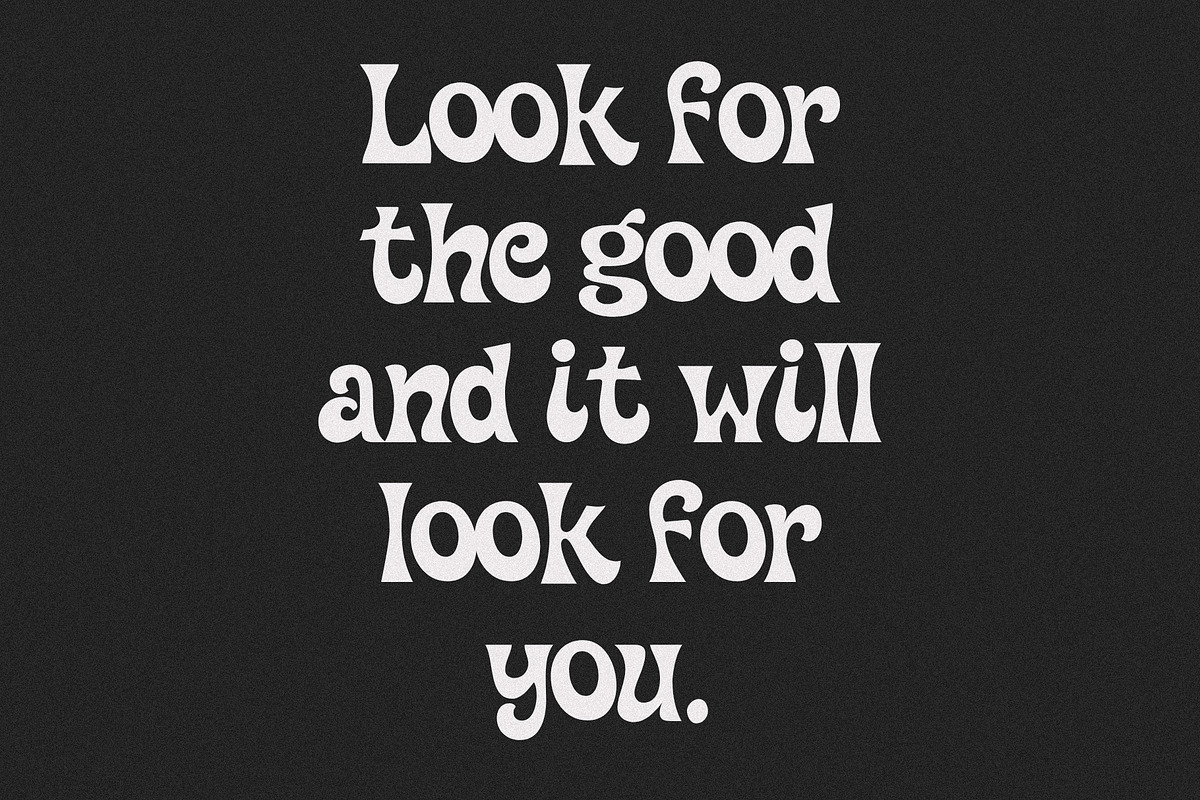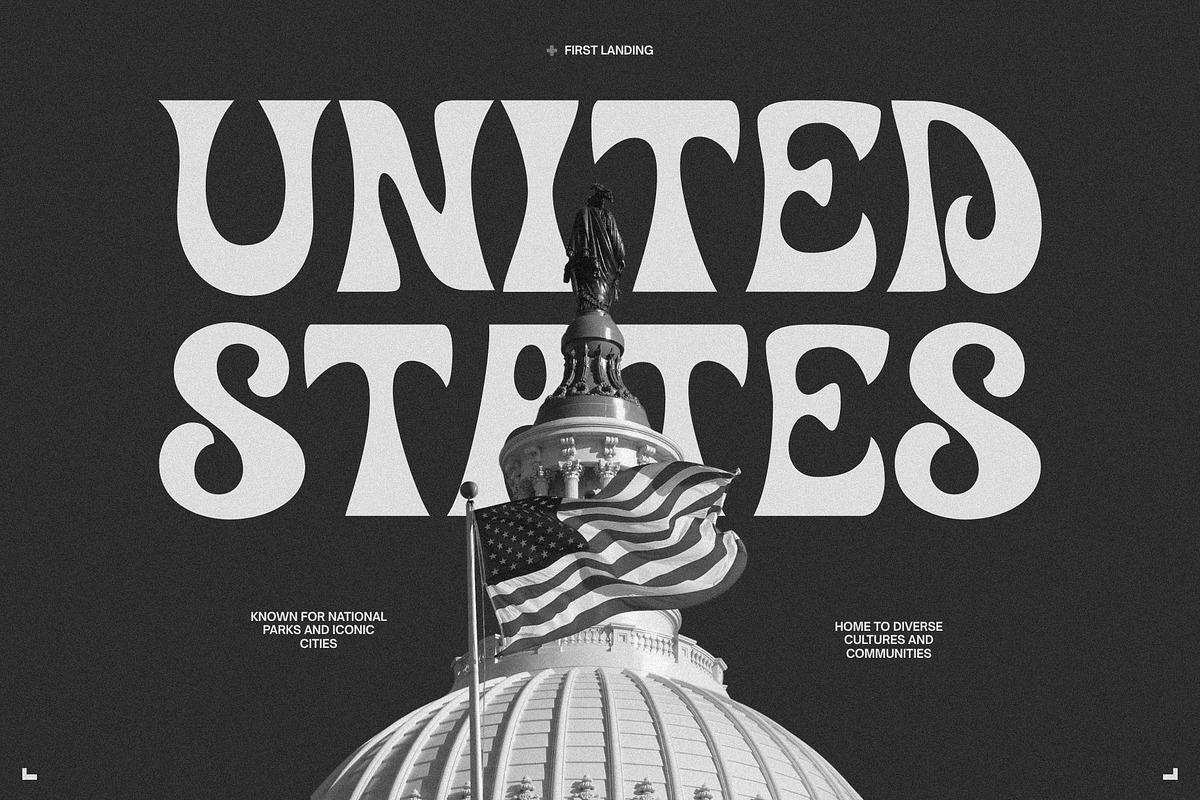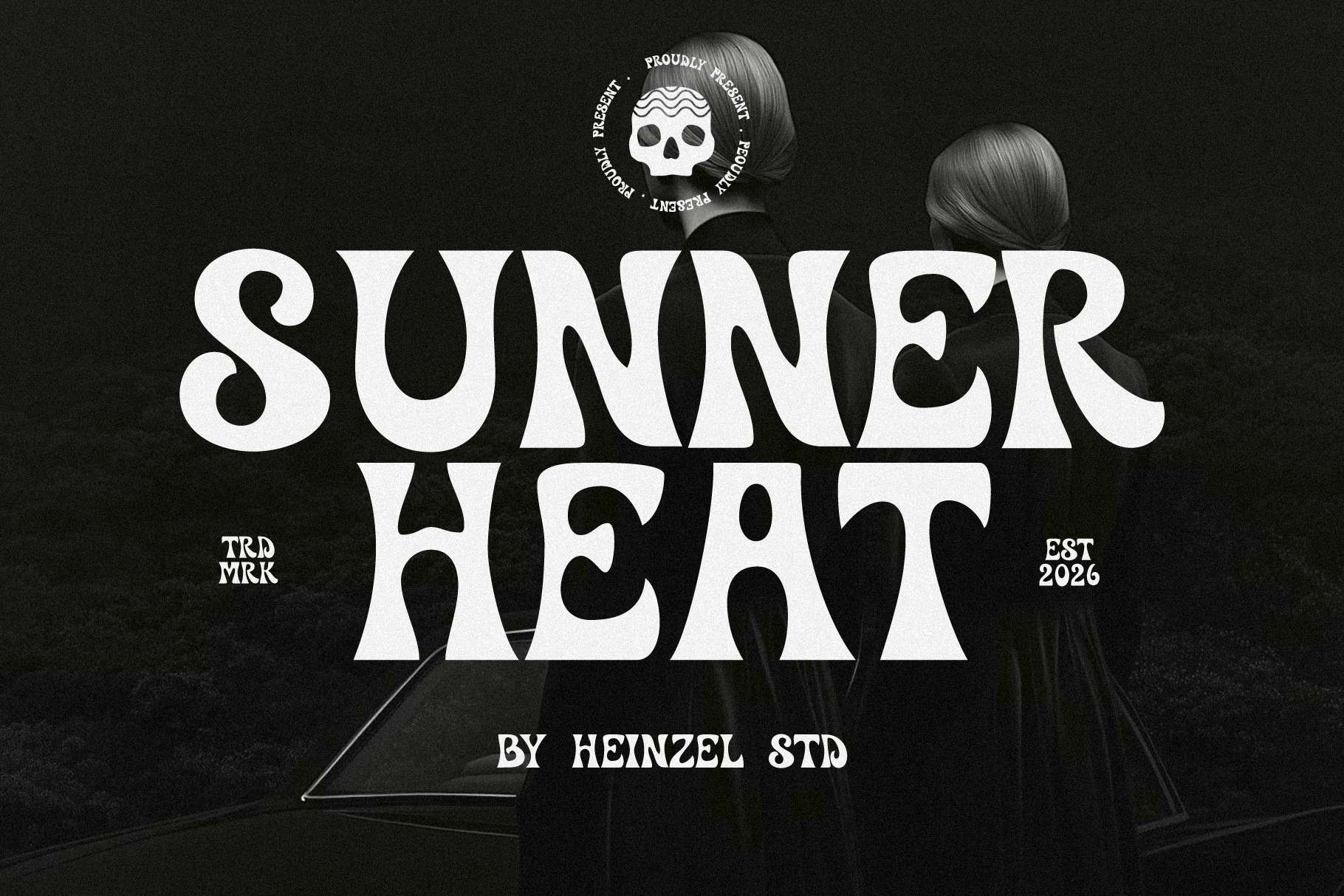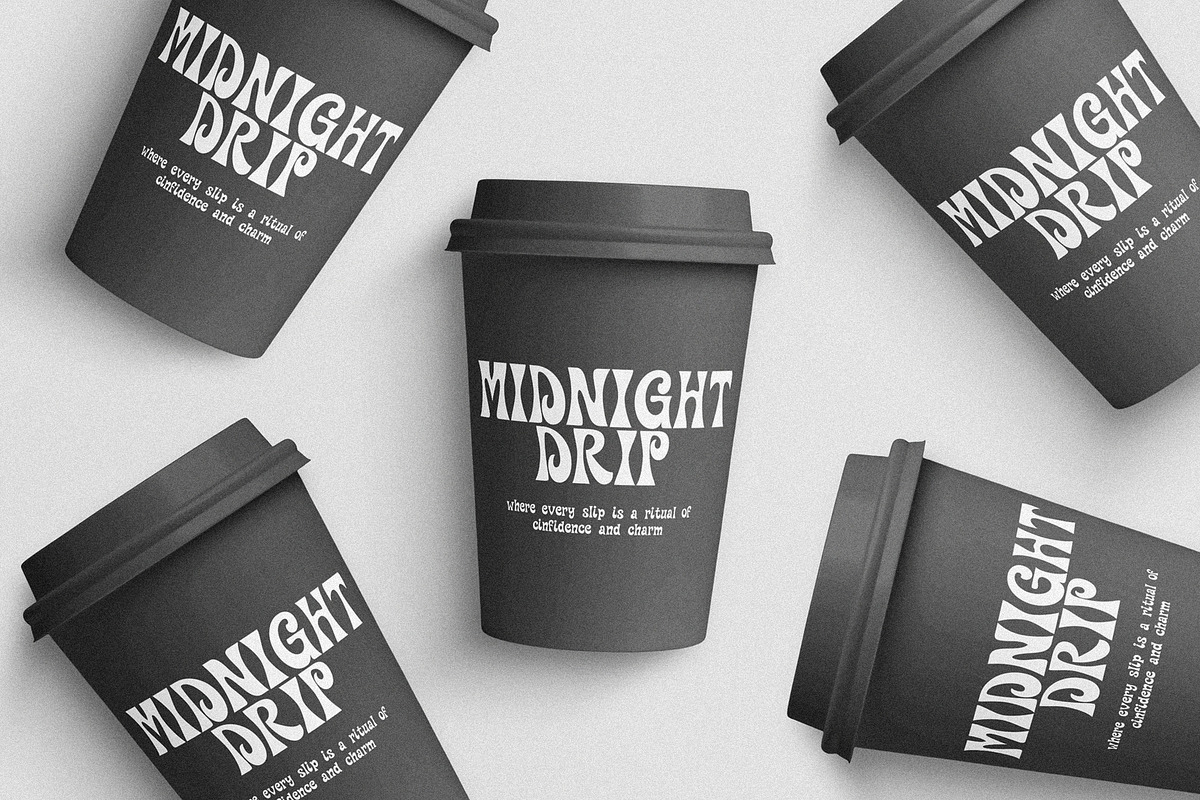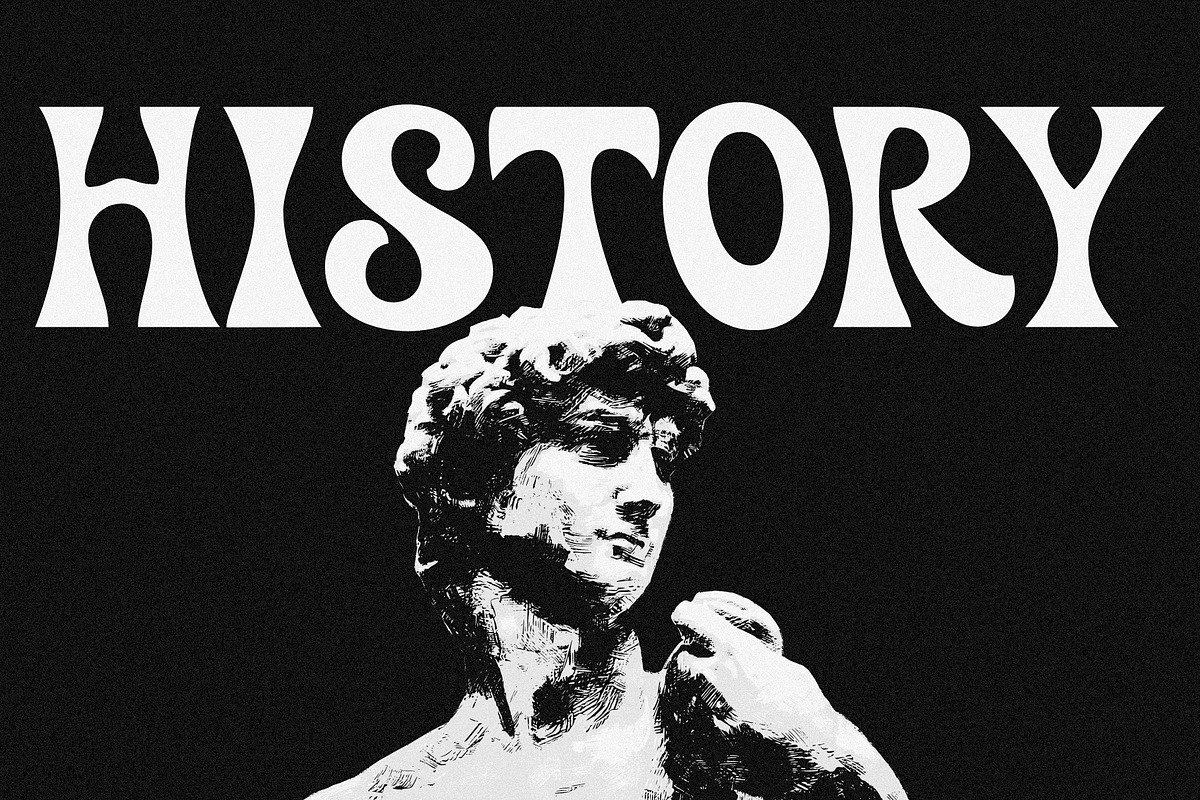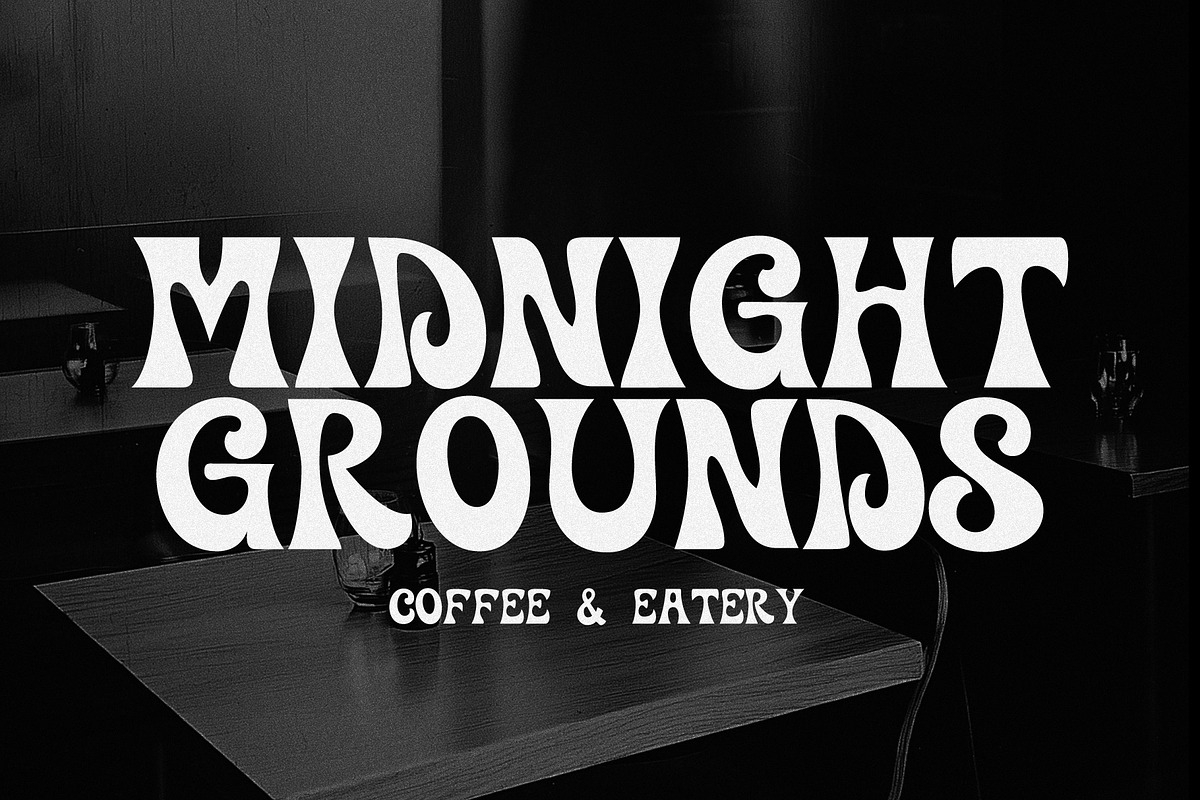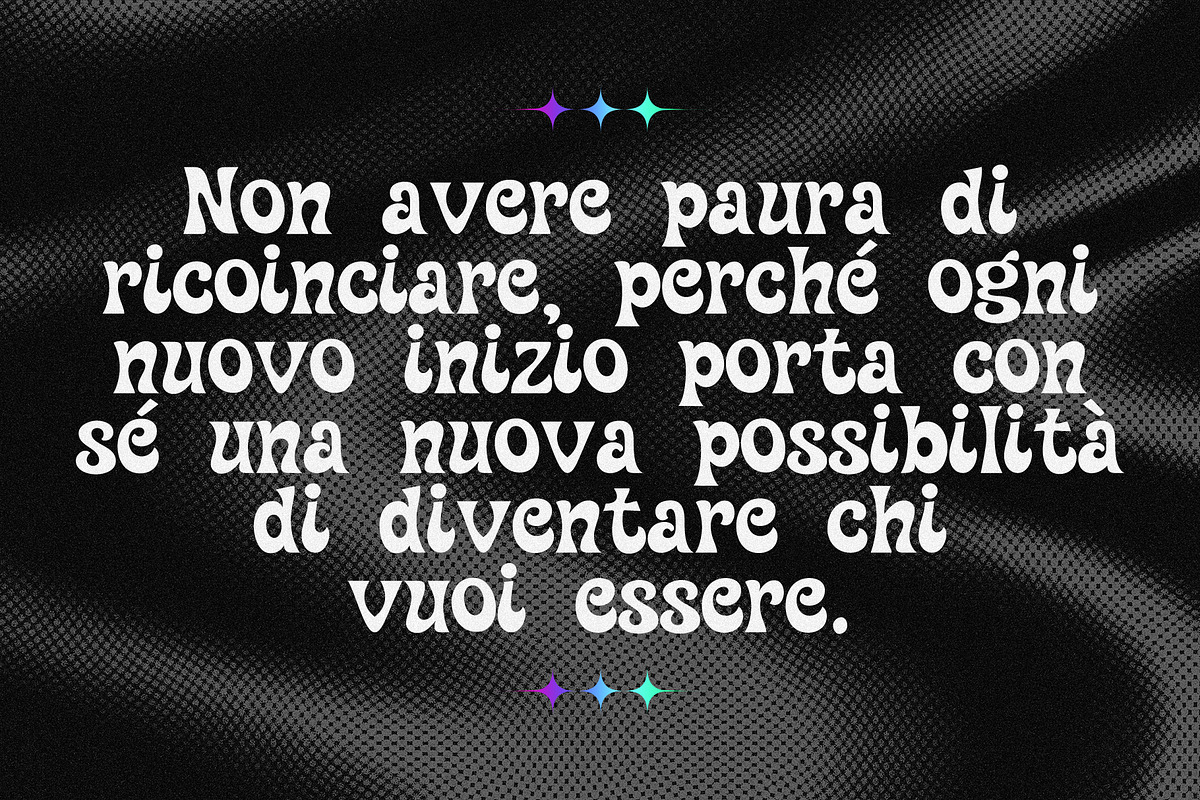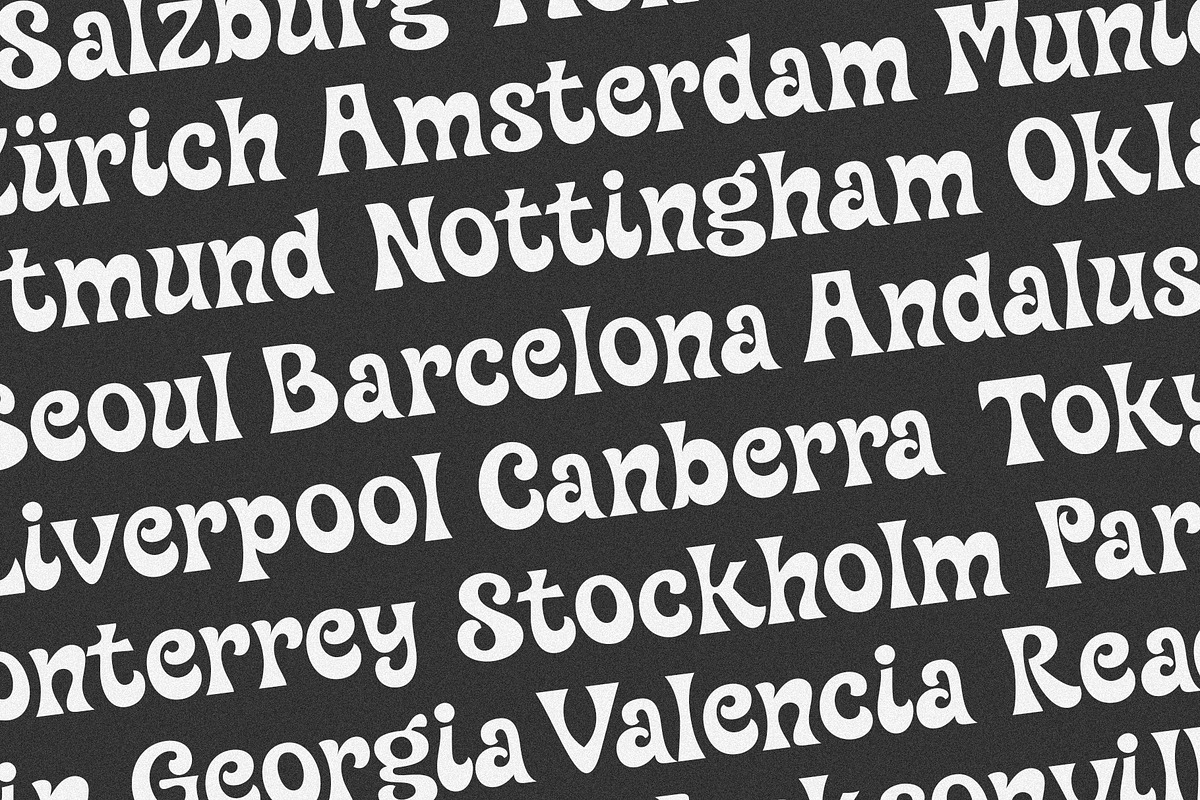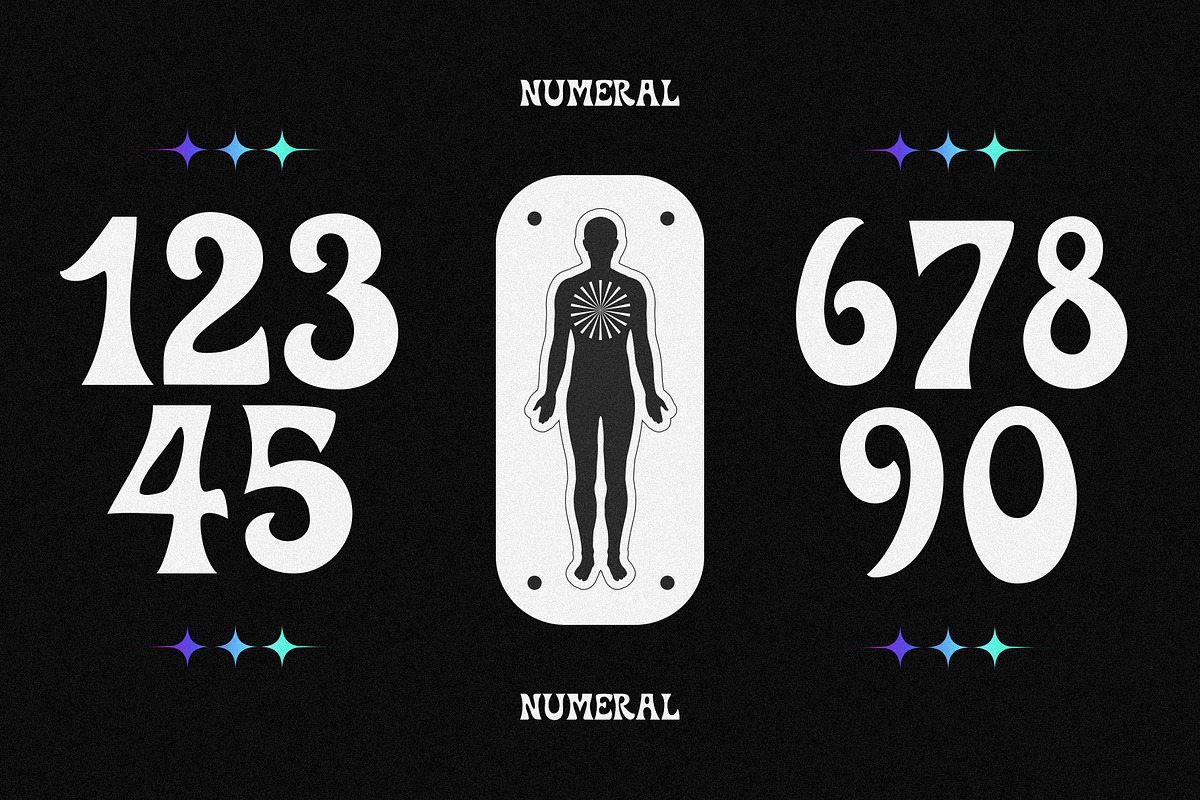
Sunner Heat Bold Retro Font
Sunner Heat Font – Bold Retro Display Typeface with Groovy 70s Style
Sunner Heat is a bold retro display font inspired by the expressive typography of the 1970s and vintage psychedelic design. With its chunky letterforms, dramatic curves, high-contrast shapes, and distinctive retro personality, Sunner Heat brings an instantly recognizable vintage aesthetic to your designs.
Perfect for retro posters, vintage branding, album covers, music artwork, apparel, logos, editorial designs, packaging, social media graphics, and typography projects. Its bold and unconventional shapes make it especially effective for headlines, large-scale typography, and eye-catching display compositions.
Sunner Heat combines a nostalgic 70s-inspired aesthetic with a modern graphic feel, making it a versatile choice for designers looking to create bold, stylish, and memorable visuals.